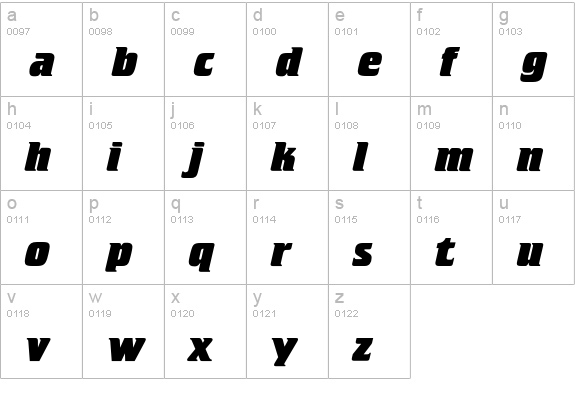
Stettin font is a classic and elegant typeface that exudes sophistication and style. With its clean lines and timeless design, this font is perfect for a wide range of projects, from branding to editorial design. Stettin font is not only visually appealing but also highly versatile, making it a great choice for both print and digital applications. One of the best things about Stettin font is that it is completely free to download! You can easily access this stunning typeface at FontsMarket.com, where you can find a wide selection of high-quality fonts for all your design needs. Don't miss out on the opportunity to enhance your projects with the beauty and elegance of Stettin font - download it today and elevate your designs to the next level.